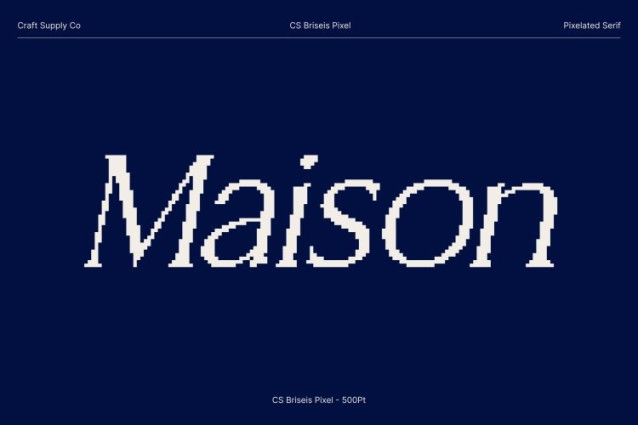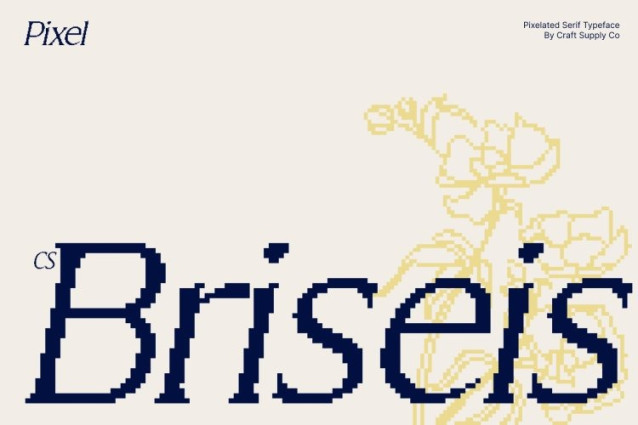
CS Briseis Pixel Font
CS Briseis Pixel Font This reimagines classic luxury serif elegance with a pixel-inspired twist. Every refined curve and clean serif is translated into a crisp, digital-friendly form, making the font perfect for modern interfaces, retro-tech visuals, or high-end branding that wants a contemporary digital edge.
Structured Elegance with Pixel Precision
The font preserves the graceful rhythm and balanced proportions of a traditional serif while incorporating subtle pixel detailing. This combination creates clarity and sophistication, giving your text a timeless, professional presence that’s both stylish and visually striking in digital contexts.
Ideal for Premium Editorials and Branding
This font works beautifully across editorial layouts, luxury product packaging, logos, and digital design projects. Its clean, pixelated refinement ensures that every composition conveys intelligence, sophistication, and modern luxury.
A Modern Classic for Designers
Blending traditional serif charm with pixel-perfect execution, this font offers versatility and visual appeal for designers seeking to merge elegance with contemporary digital style. Use this font to craft visuals that feel both timeless and cutting-edge.